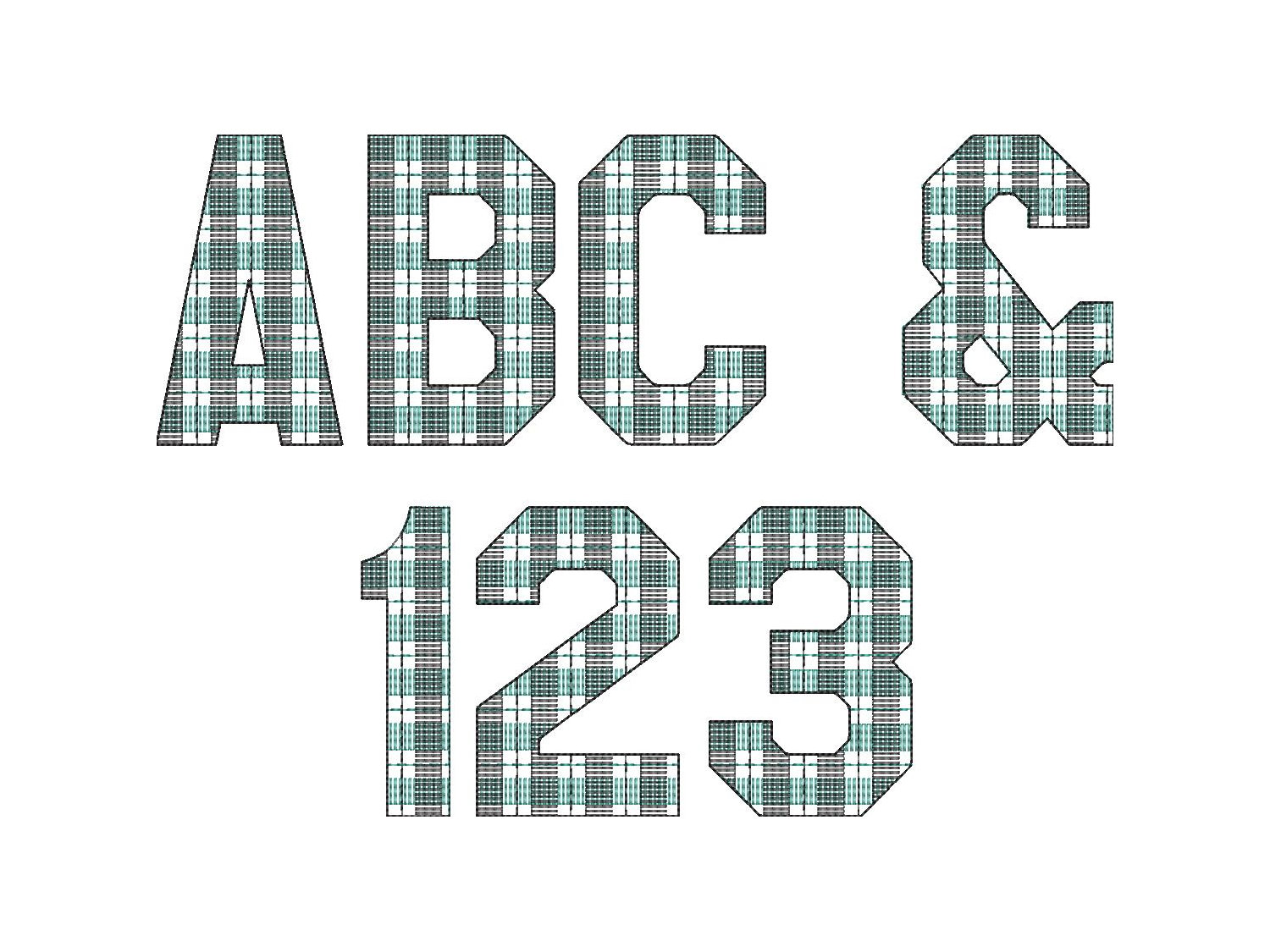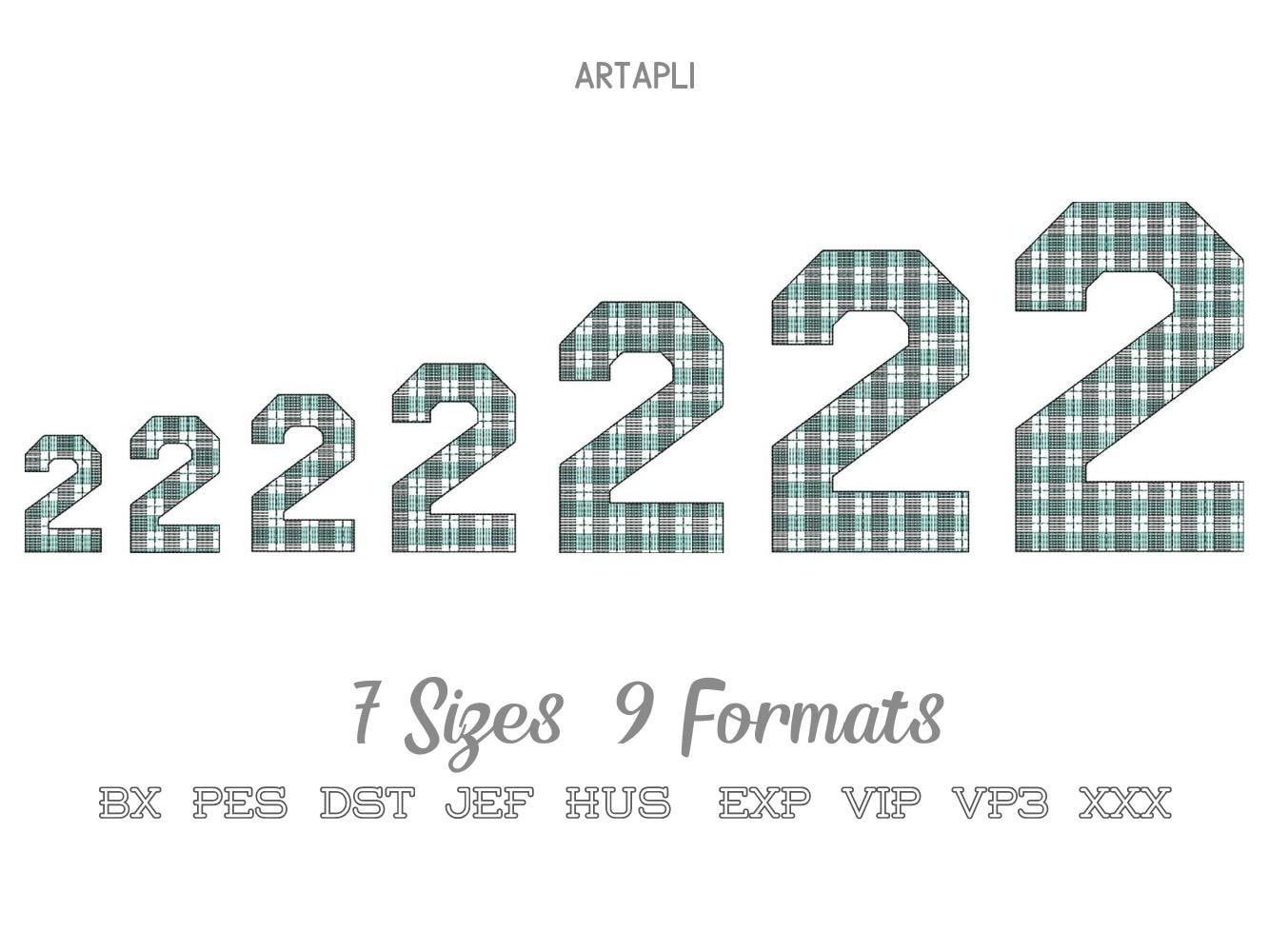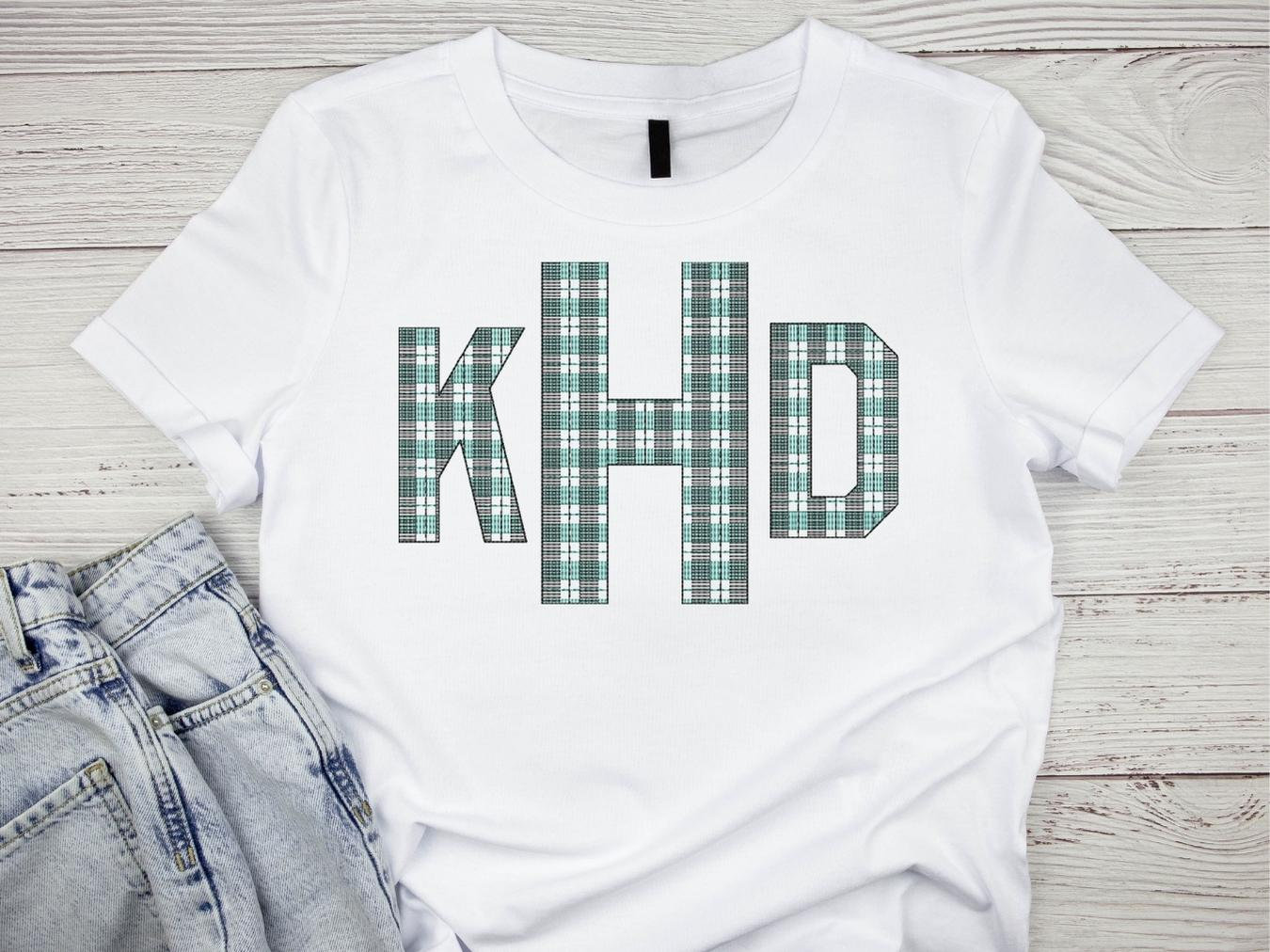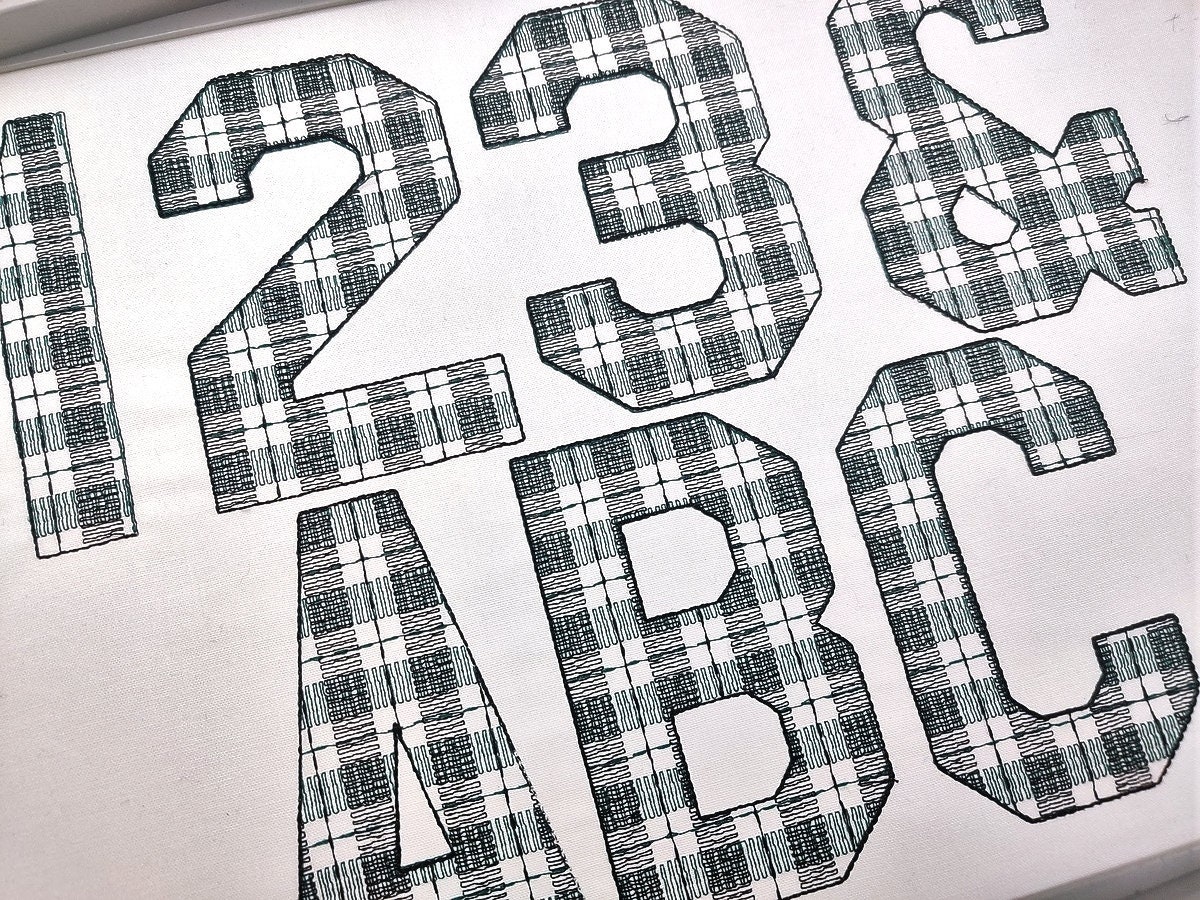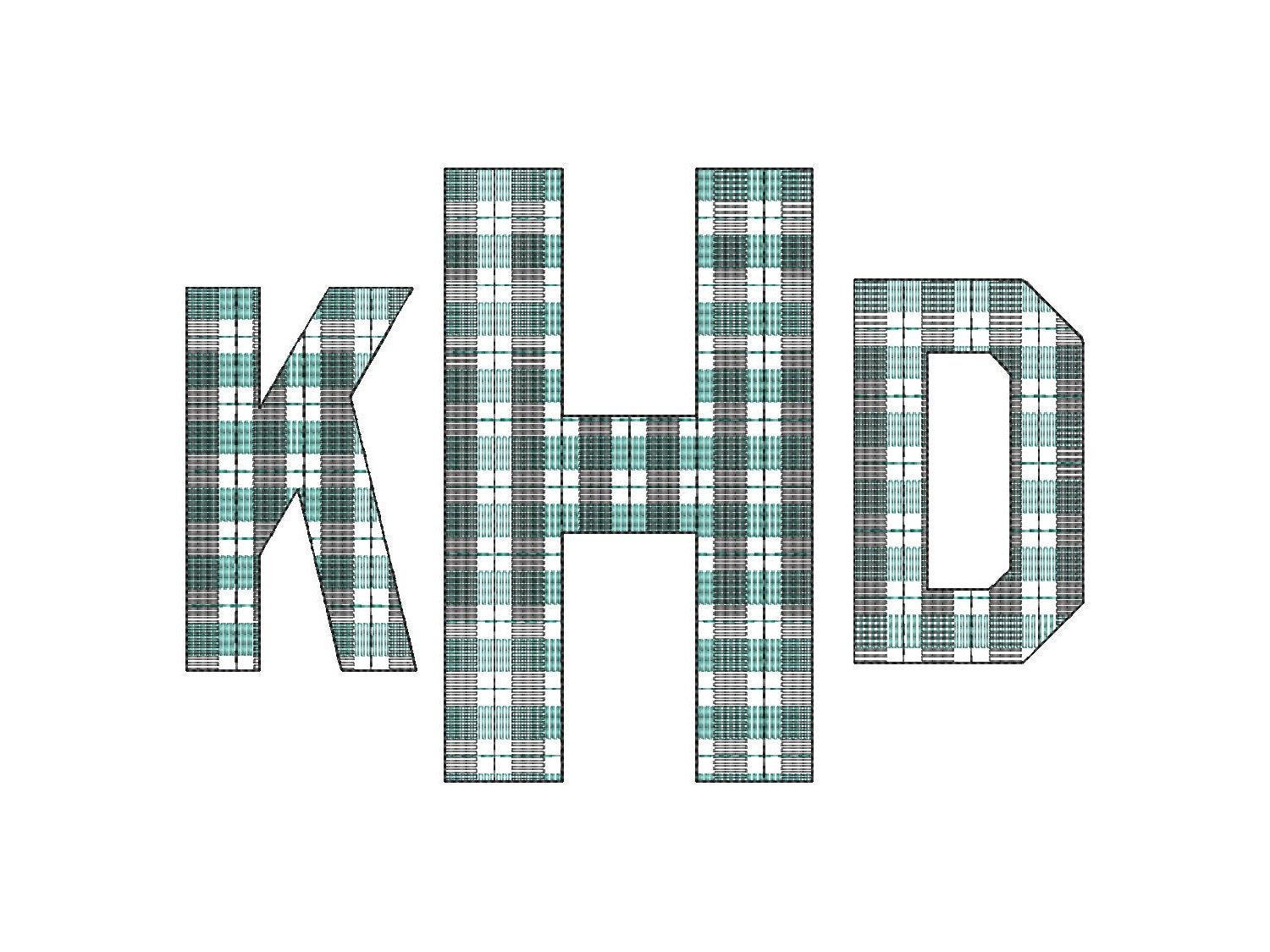
Gingham Sport Font letters and numbers machine embroidery designs many sizes 2, 3, 4, 5, 6, 7in Buffalo Plaid Tartan checkered alphabet, BX included
Gingham plaid print is a part of the embroidery.
Whole alphabet A-Z and numbers 0-9, and ampersand &